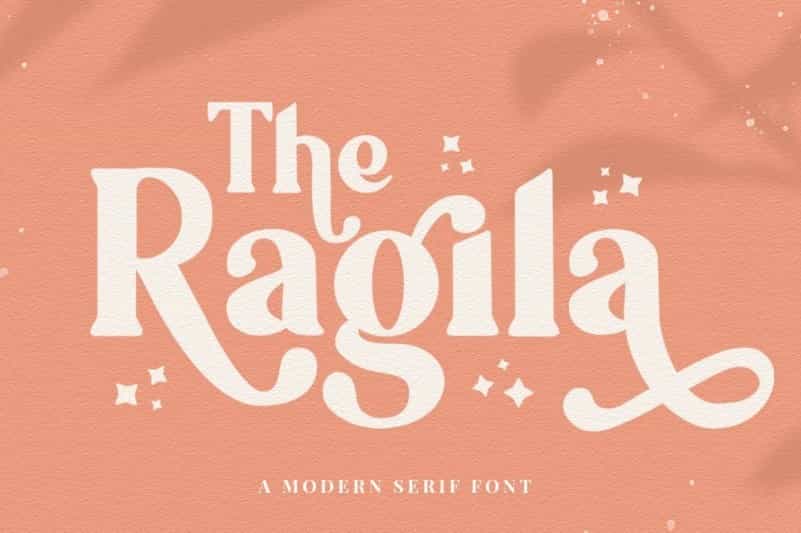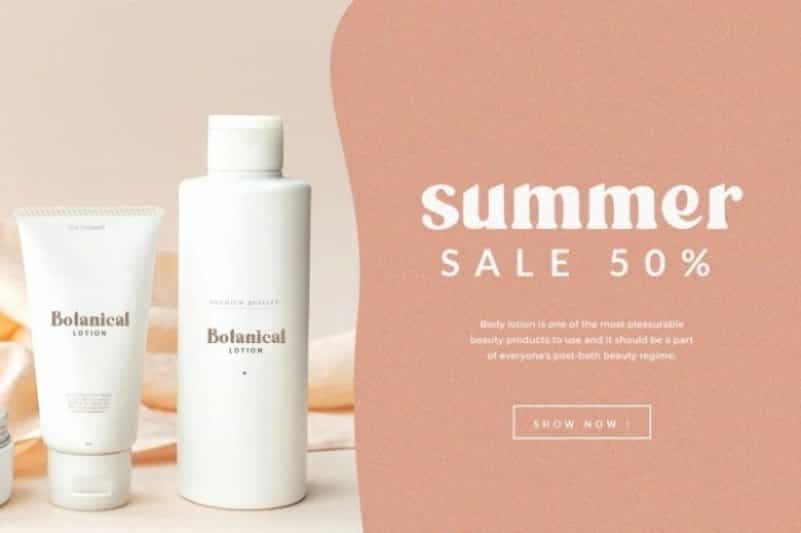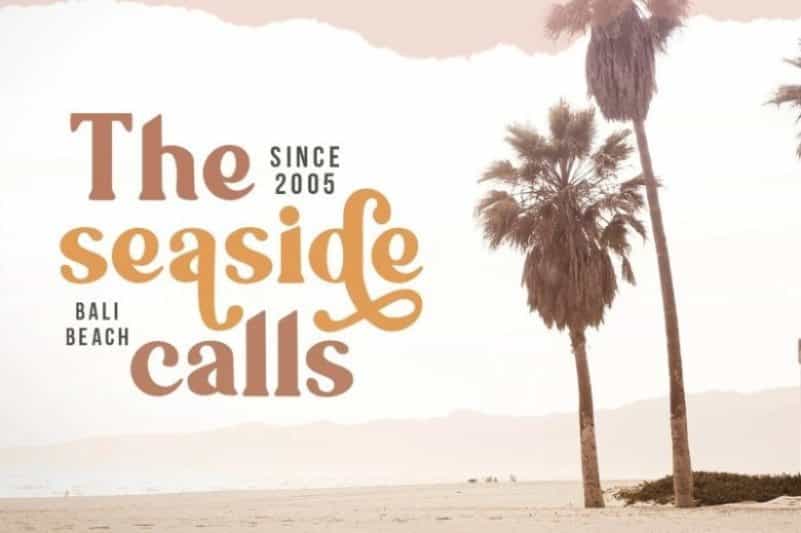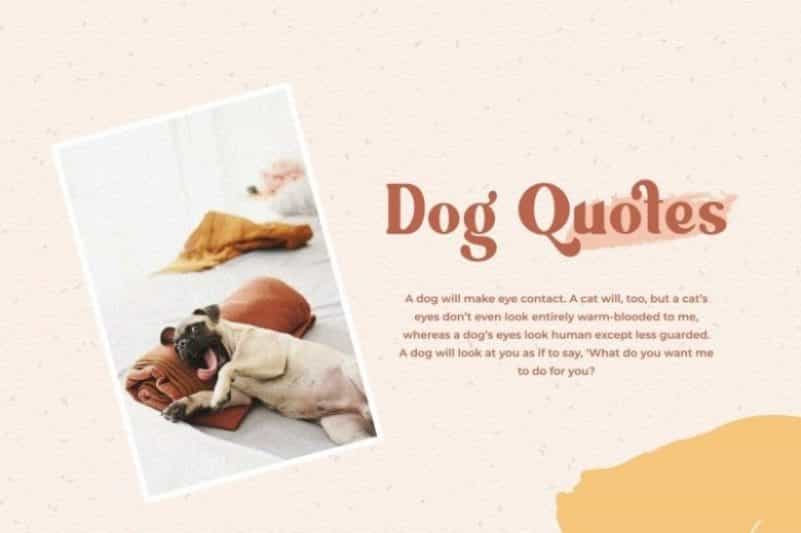
Ragila Modern Serif Font
Ragila is a sophisticated modern serif font with an editorial style created with care to add elegant simplicity in your writing. It is a ligature font with a number of different ligatures as well as elegant alternative fonts, making the font extremely adaptable.